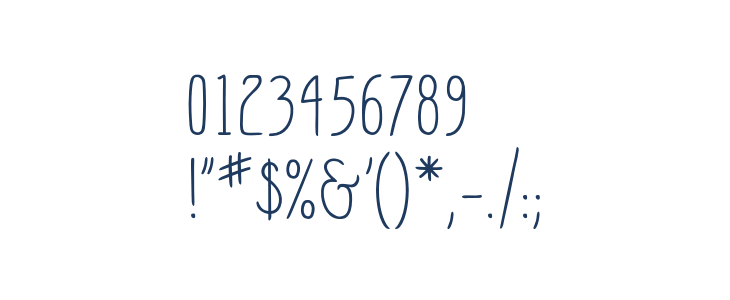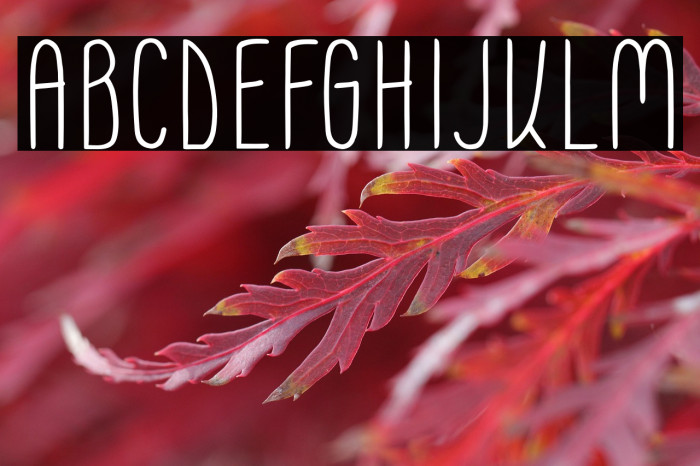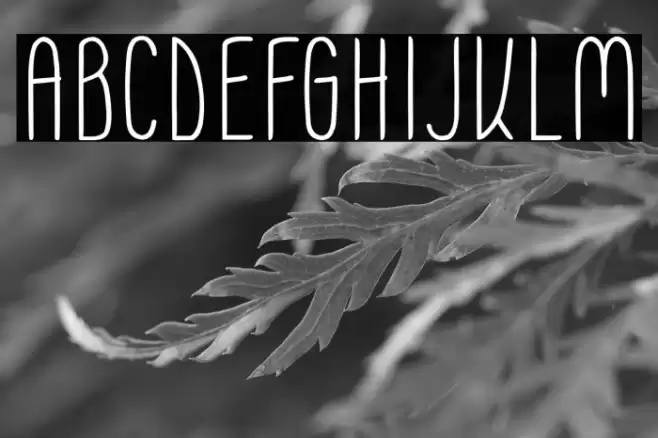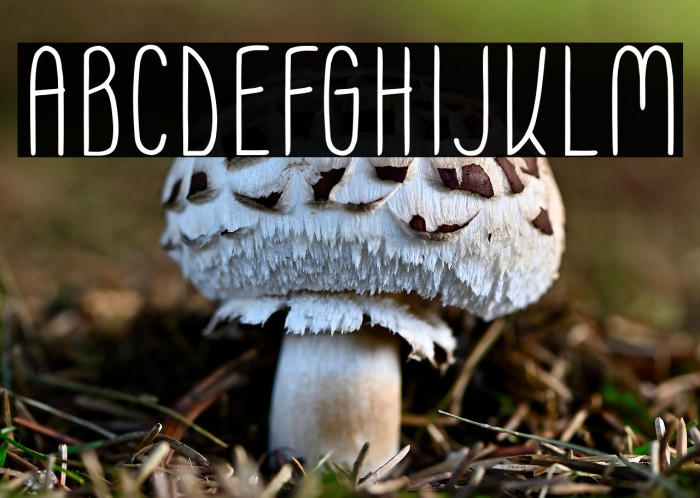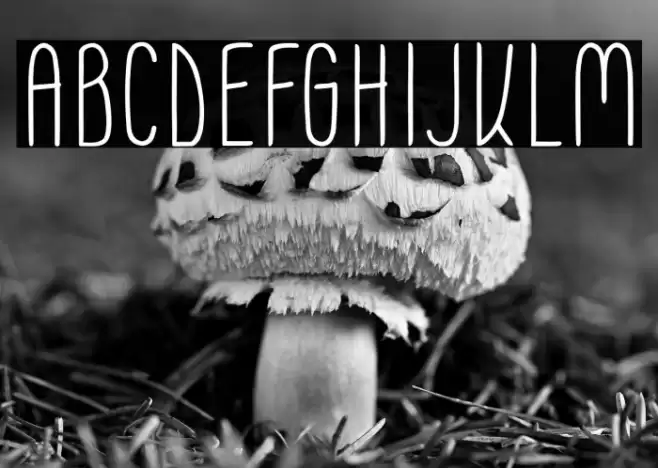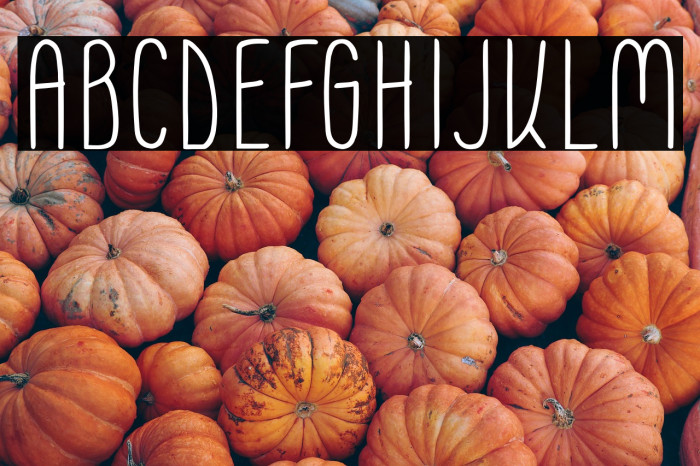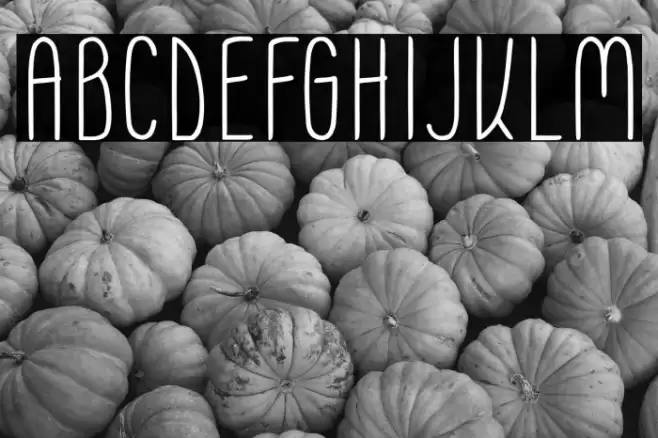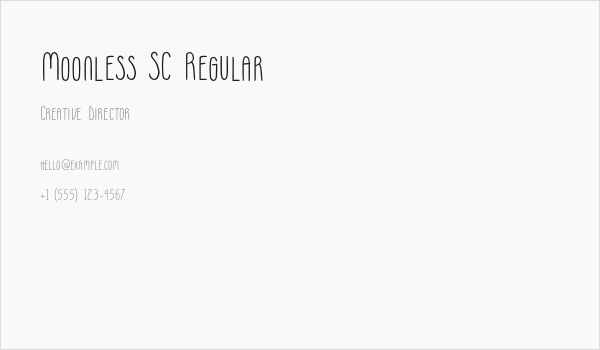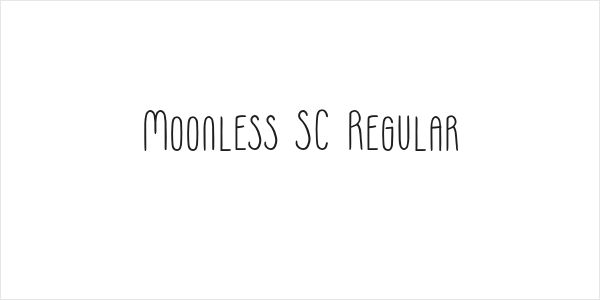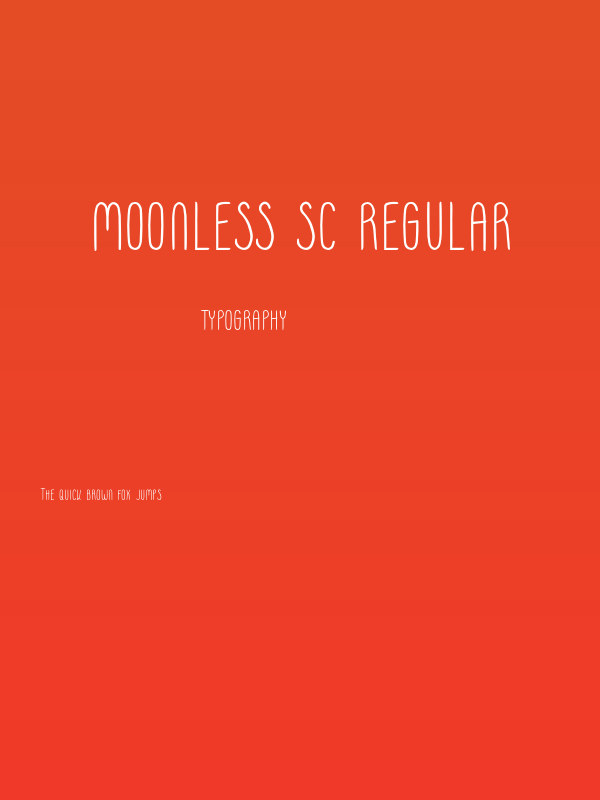
Moonless SC Regular Font
Moonless SC Regular Description
This font features a tall, narrow design with rounded edges, giving it a modern and friendly appearance. The characters are uniformly structured, maintaining consistent height and width, which contributes to its clean and organized look. The uppercase and lowercase letters are distinct yet harmonized, with a slight playful touch due to the rounded terminals. The numerals are clear and easy to read, matching the overall style of the alphabet. Special characters are well-integrated, maintaining the same rounded and elongated style. This font is versatile, suitable for both digital and print media, and can be used to add a contemporary flair to any project.
| Proposed Projects | Ideal for branding, packaging, posters, and digital media where a modern and approachable look is desired. |